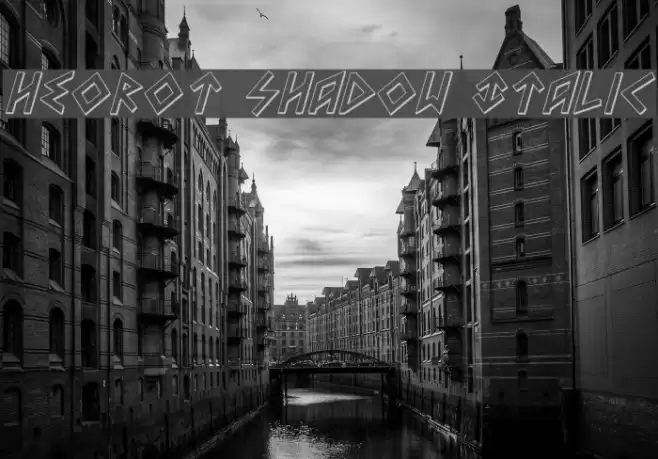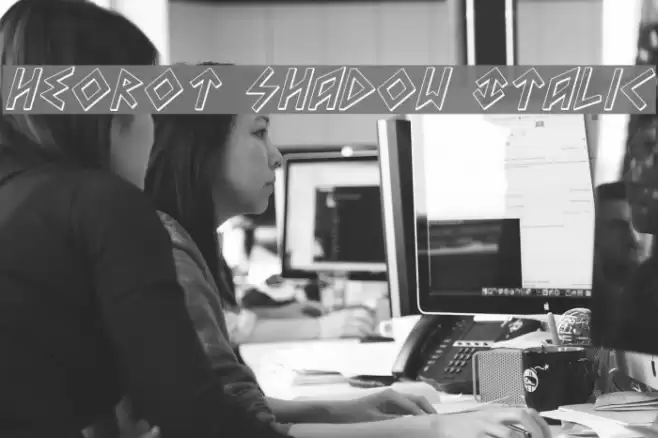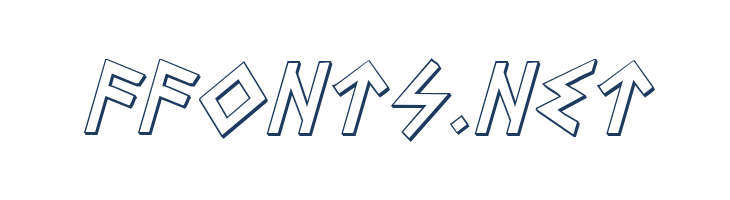
Heorot Shadow Italic Font
Heorot Shadow Italic Description
This font features a bold, angular design with a shadow effect that gives it a three-dimensional appearance. The characters are stylized with sharp edges and geometric shapes, creating a dynamic and impactful look. The uppercase and lowercase letters maintain a consistent style, with the shadow adding depth and a sense of movement. The numbers and special characters are designed to match the overall aesthetic, making the font suitable for projects that require a bold and eye-catching typeface.
- Proposed Projects: Ideal for posters, video game graphics, logos, and titles that require a striking and modern appearance.